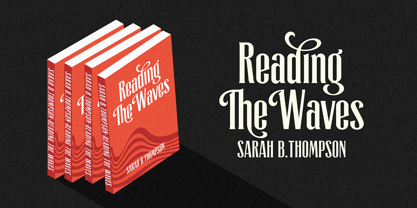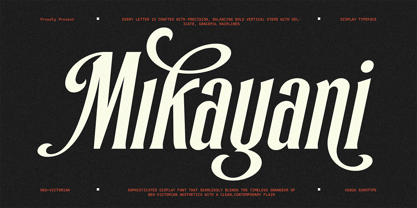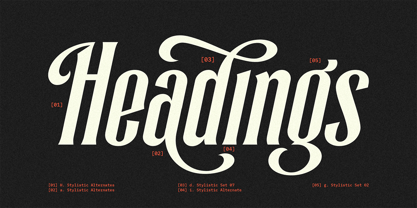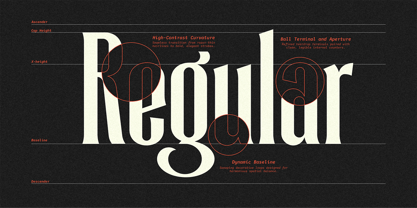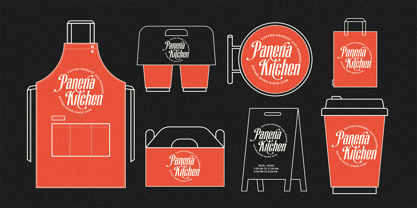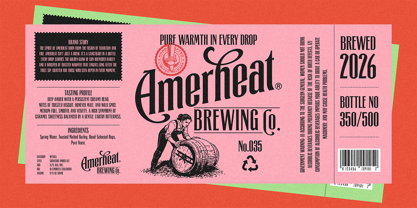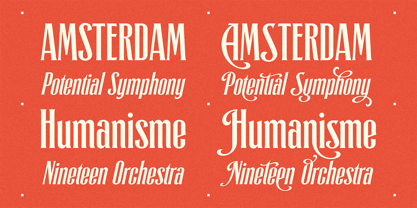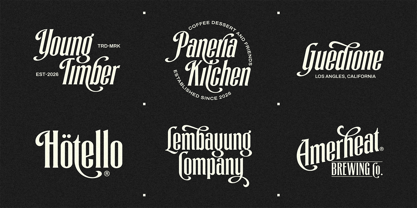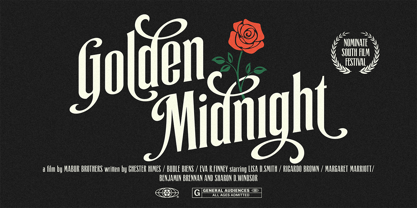
Mikayani
by Surotype
The Mikayani Font Family was designed by Adil Budianto and published by Surotype. Mikayani contains 2 styles and family package options. More about this family
Mikayani is a sophisticated display font that seamlessly blends the timeless grandeur of Neo-Victorian aesthetics with a clean, contemporary flair. Defined by its striking high contrast, razor-sharp serifs, and fluid decorative swashes, this font is designed to command attention while maintaining an air of high-end elegance. Every letter is crafted with precision, balancing bold vertical stems with delicate, graceful hairlines. To give you ultimate creative freedom, Mikayani comes packed with a rich set of stylistic alternates and decorative flourishes, allowing you to create custom-looking layouts with just a few clicks.